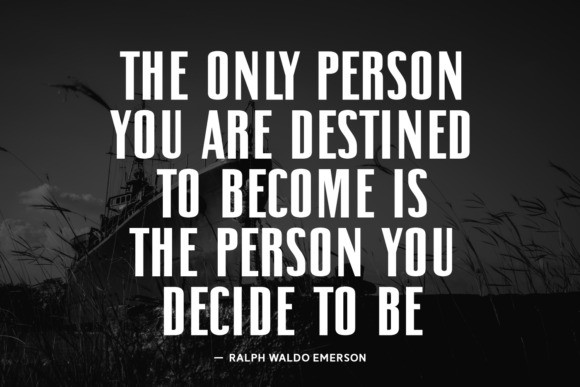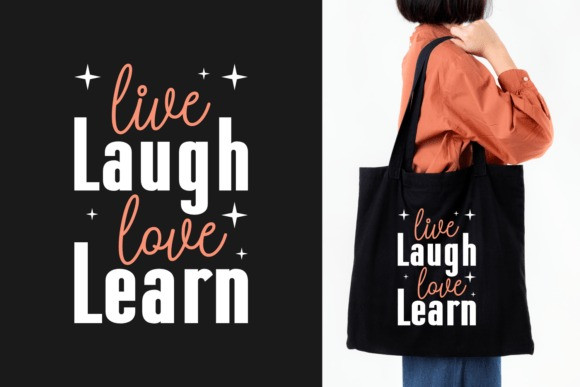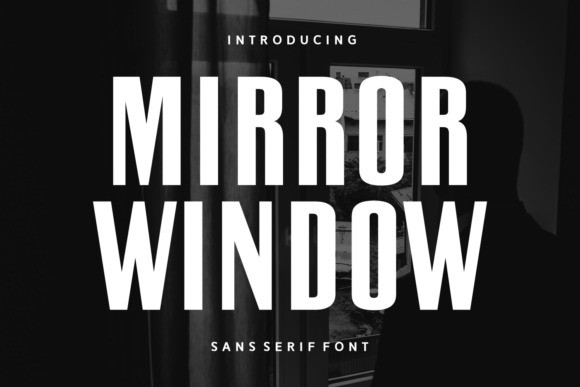
Mirror Window Font
Mirror Window Font, a sans serif font. The cinematic and mysterious atmosphere of the background complements the font’s strong, modern, and impactful character, making it well-suited for headlines and posters.